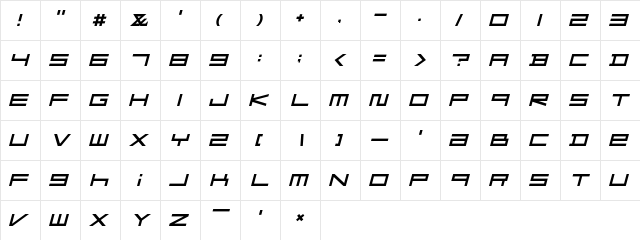
F-Zero GX Menu Font Obl Italic
Design Context for F-Zero GX Menu Font Obl Typeface
F-Zero GX Menu Font Obl offers clean, dependable letterforms without strong stylistic allegiance, making it a practical choice for designers who need flexibility. The slanted form adds forward momentum and visual energy.
Pro Tip: Try F-Zero GX Menu Font Obl for annotation and caption copy alongside an upright companion — the contrast in angle creates a dynamic but ordered typographic system.